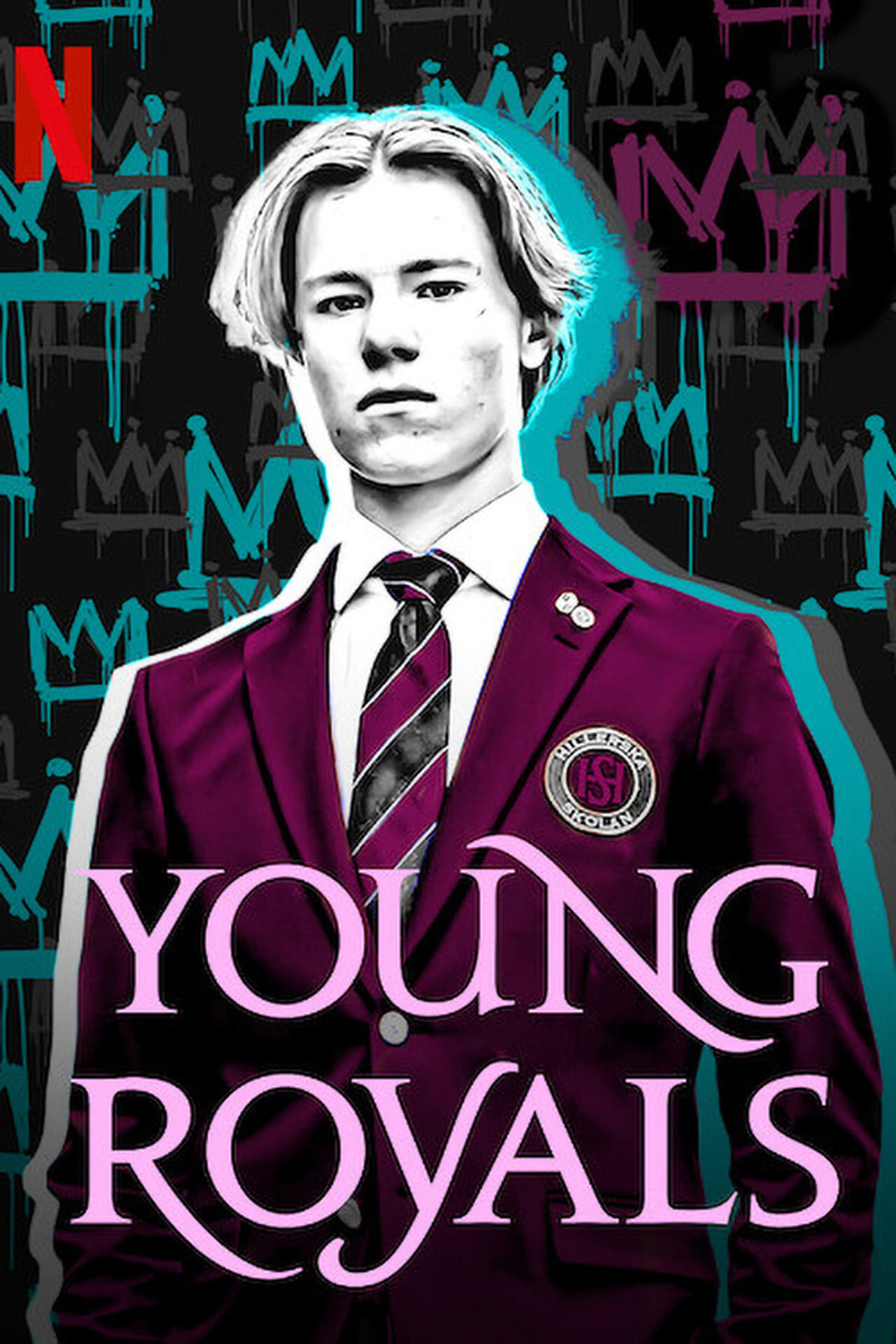
Young Royals Font
The title of the TV series "Young Royals" is styled with a font similar to Jupiter, created by Patrick Griffin. Jupiter is a serif typeface that is inspired by the grand, monumental capital letters of ancient Rome. The font is a commercial one and can be purchased here